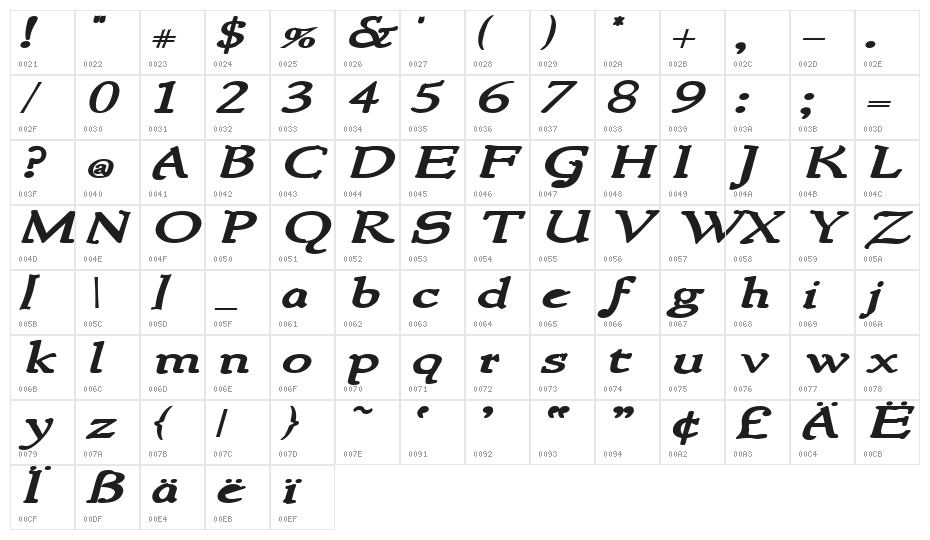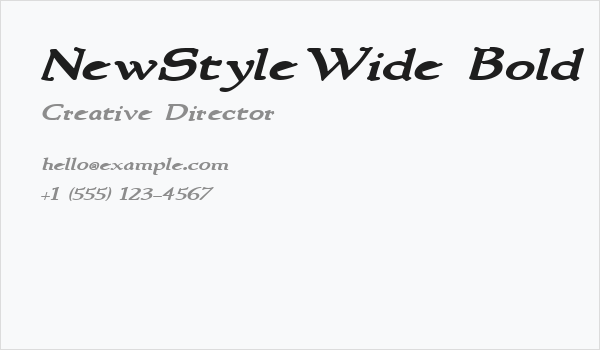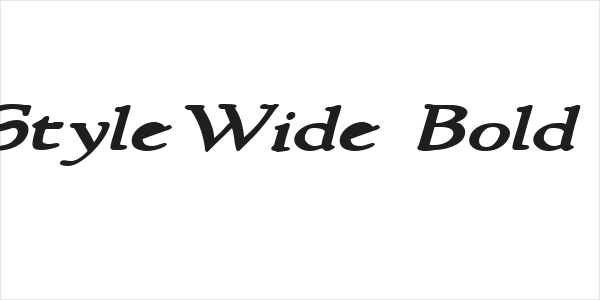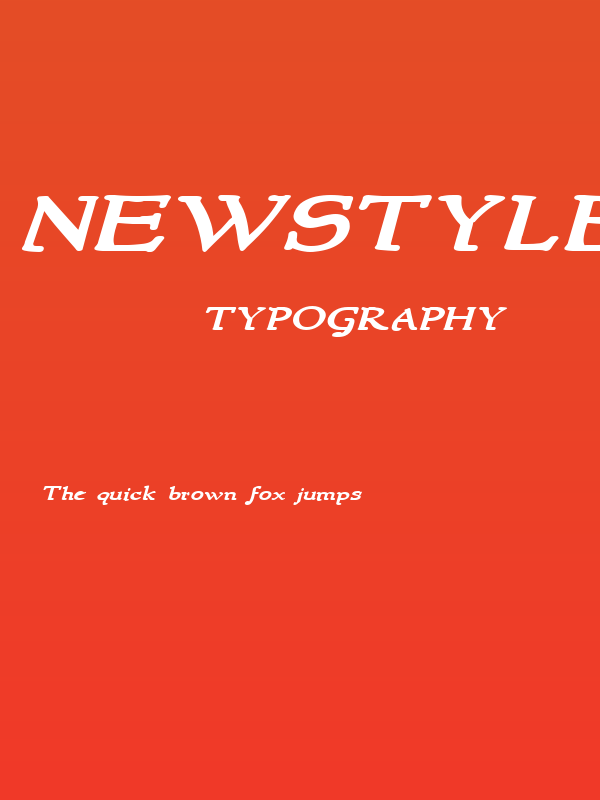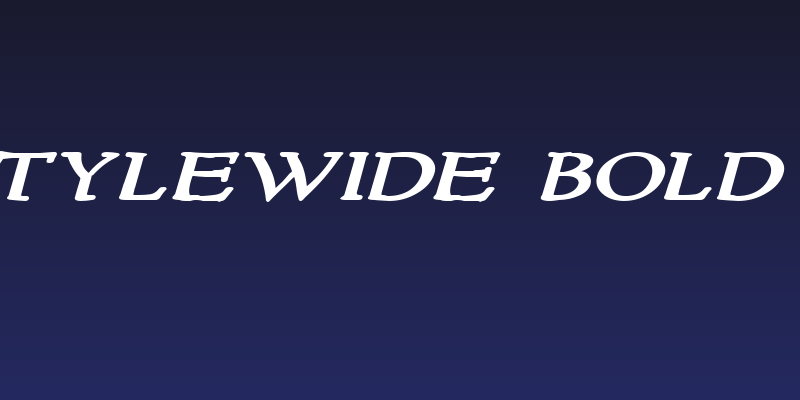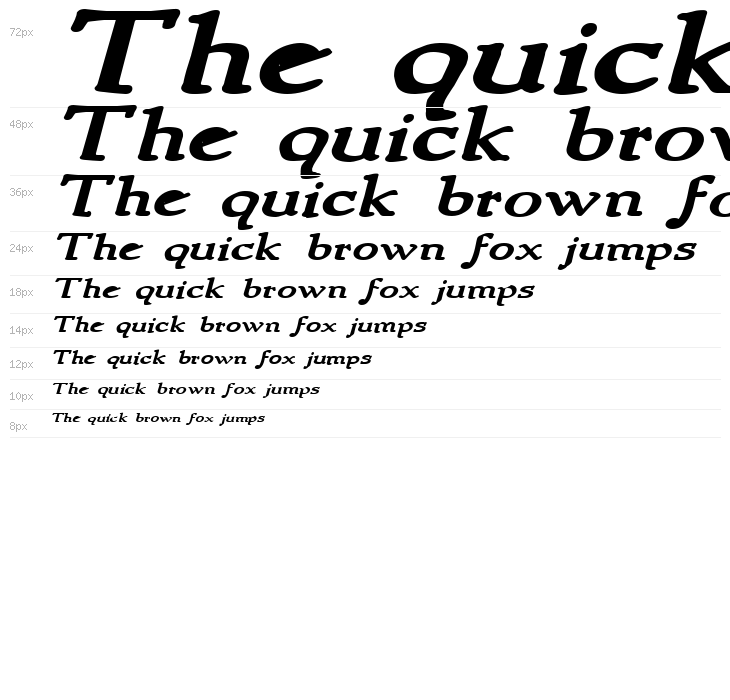
NewStyleWide Bold Italic Font
NewStyleWide Bold Italic Description
This font features a bold and italicized style with wide letterforms, giving it a strong and impactful appearance. The characters are designed with a modern aesthetic, incorporating clean lines and smooth curves. The wide spacing between characters enhances readability and adds a contemporary touch. The bold weight ensures that the text stands out, making it suitable for attention-grabbing headlines or titles. The italic slant adds a dynamic and forward-moving feel, perfect for projects that require a sense of motion or progress.
| Proposed Projects | Ideal for headlines, advertising, branding, and any project needing a bold and modern look. |